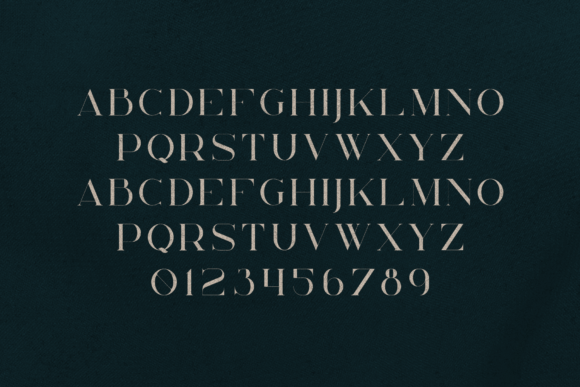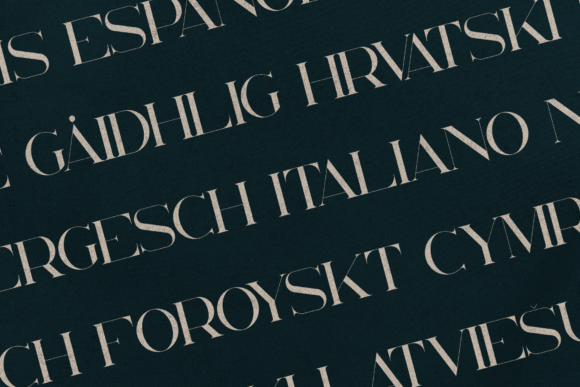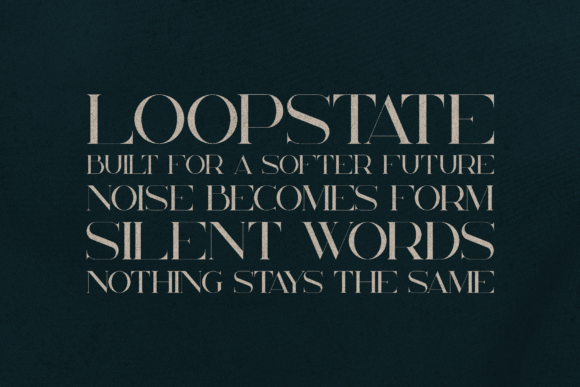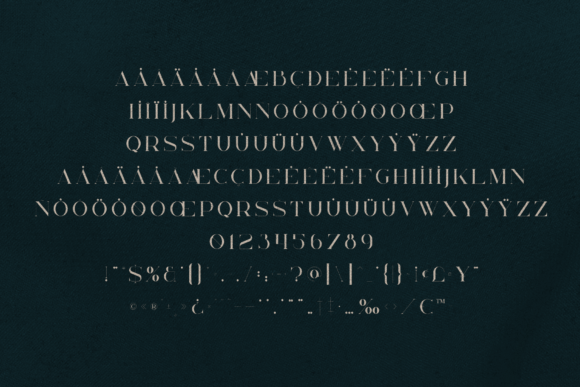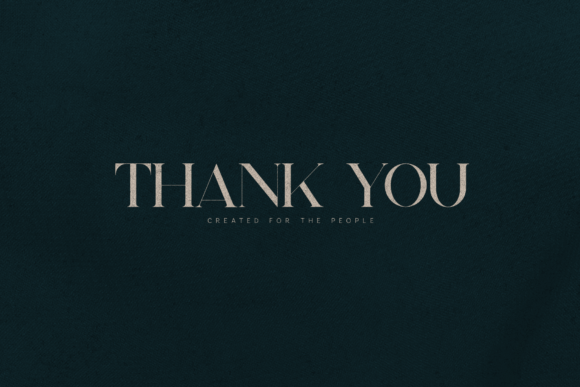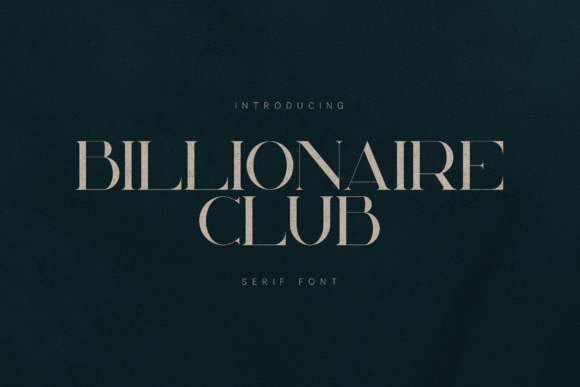
Billionaire Club Font: Elevate Your Design with Luxury and Sophistication
In the world of typography, a font can make or break the visual identity of a brand. For designers and crafters seeking to create high-end branding, editorial design, and sophisticated visual identities, the Billionaire Club Font is an exceptional choice. This refined luxury serif font is inspired by classic typography with a modern edge, delivering elegance, confidence, and timeless character in every letterform.
The Billionaire Club Font boasts sharp contrasts, graceful curves, and balanced proportions, making it perfect for a variety of applications. Its design characteristics include:
- Sharp contrasts: The font’s sharp contrasts between thick and thin strokes create a sense of elegance and sophistication.
- Graceful curves: The font’s curves are smooth and refined, adding to its luxurious feel.
- Balanced proportions: The font’s balanced proportions ensure that it is legible and visually appealing in a variety of sizes and applications.
Perfect Applications
The Billionaire Club Font is versatile and can be used in a variety of applications, including:
- Luxury & fashion branding: The font’s luxurious feel makes it perfect for high-end fashion brands seeking to create a sophisticated visual identity.
- Editorial & magazine design: The font’s classic typography with a modern edge makes it ideal for editorial design and magazine layouts.
- Logos & visual identities: The font’s elegance and confidence make it perfect for logos and visual identities seeking to create a lasting impression.
- Wedding invitations & labels: The font’s sophisticated feel makes it ideal for wedding invitations and labels.
- Beauty, lifestyle & premium products: The font’s luxurious feel makes it perfect for beauty, lifestyle, and premium product branding.
- Headlines, posters & packaging: The font’s bold and elegant design makes it perfect for headlines, posters, and packaging.
Crafted for Designers
The Billionaire Club Font is crafted for designers who seek sophistication, clarity, and a premium typographic presence. Its refined design and elegant feel make it perfect for designers seeking to create high-end branding and visual identities.
Why Choose Billionaire Club Font?
There are several reasons why designers and crafters should choose the Billionaire Club Font:
- Elegance and sophistication: The font’s luxurious feel and elegant design make it perfect for high-end branding and visual identities.
- Timeless character: The font’s classic typography with a modern edge ensures that it will remain timeless and relevant for years to come.
- Versatility: The font’s versatility makes it perfect for a variety of applications, from luxury branding to editorial design.
- Premium typographic presence: The font’s refined design and elegant feel ensure that it will deliver a premium typographic presence in any application.
In conclusion, the Billionaire Club Font is an exceptional choice for designers and crafters seeking to create high-end branding, editorial design, and sophisticated visual identities. Its refined luxury serif design, sharp contrasts, graceful curves, and balanced proportions make it perfect for a variety of applications. With its elegance, confidence, and timeless character, the Billionaire Club Font is sure to elevate any design to new heights.